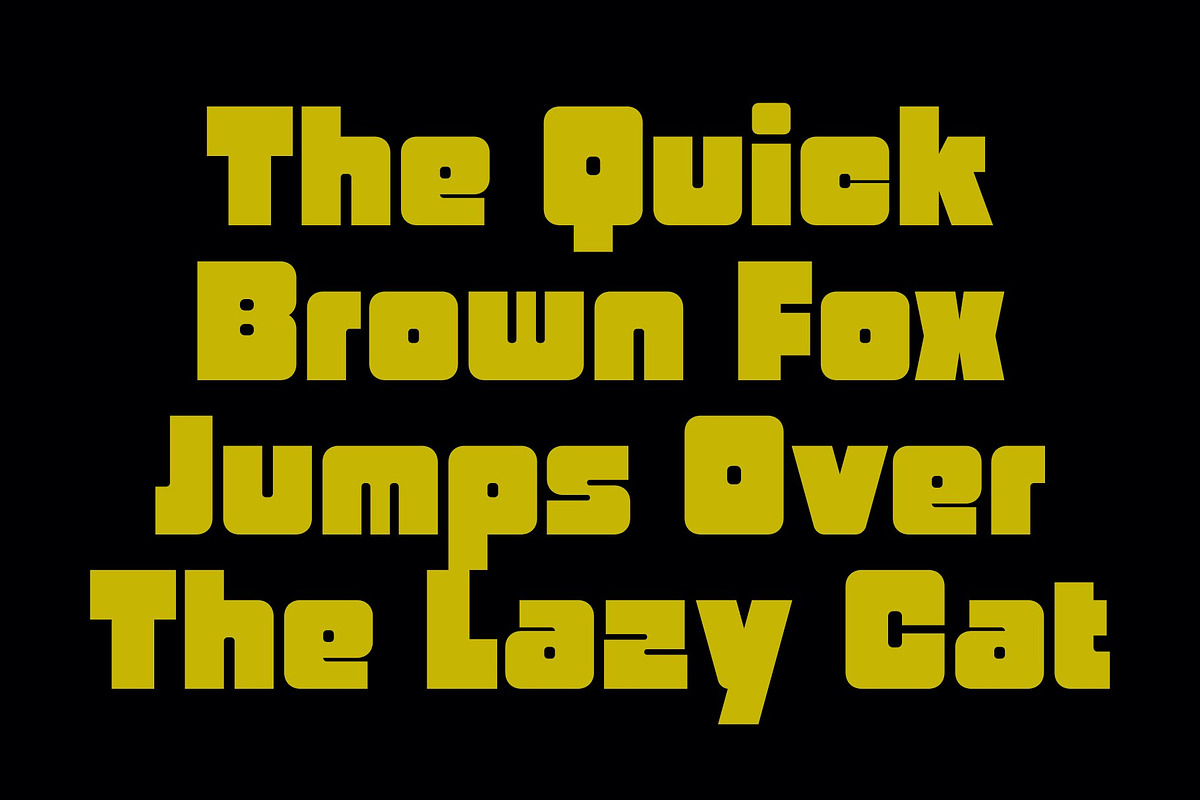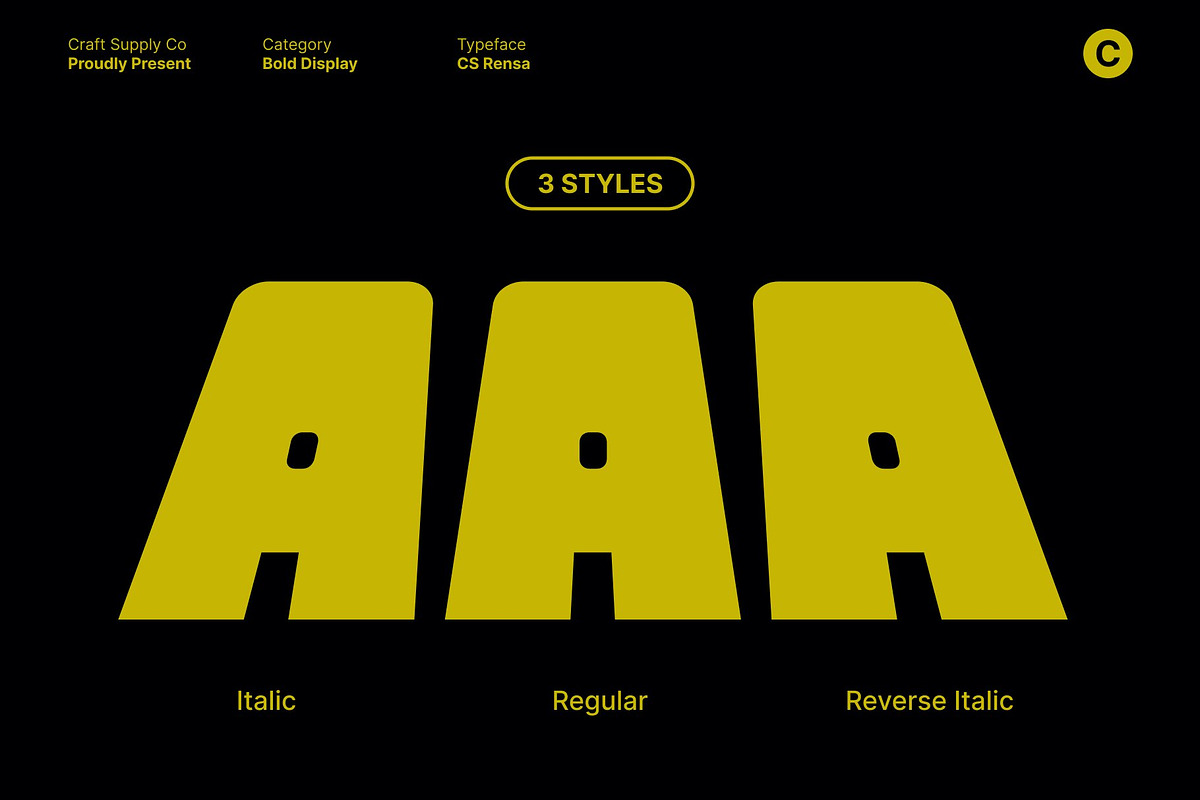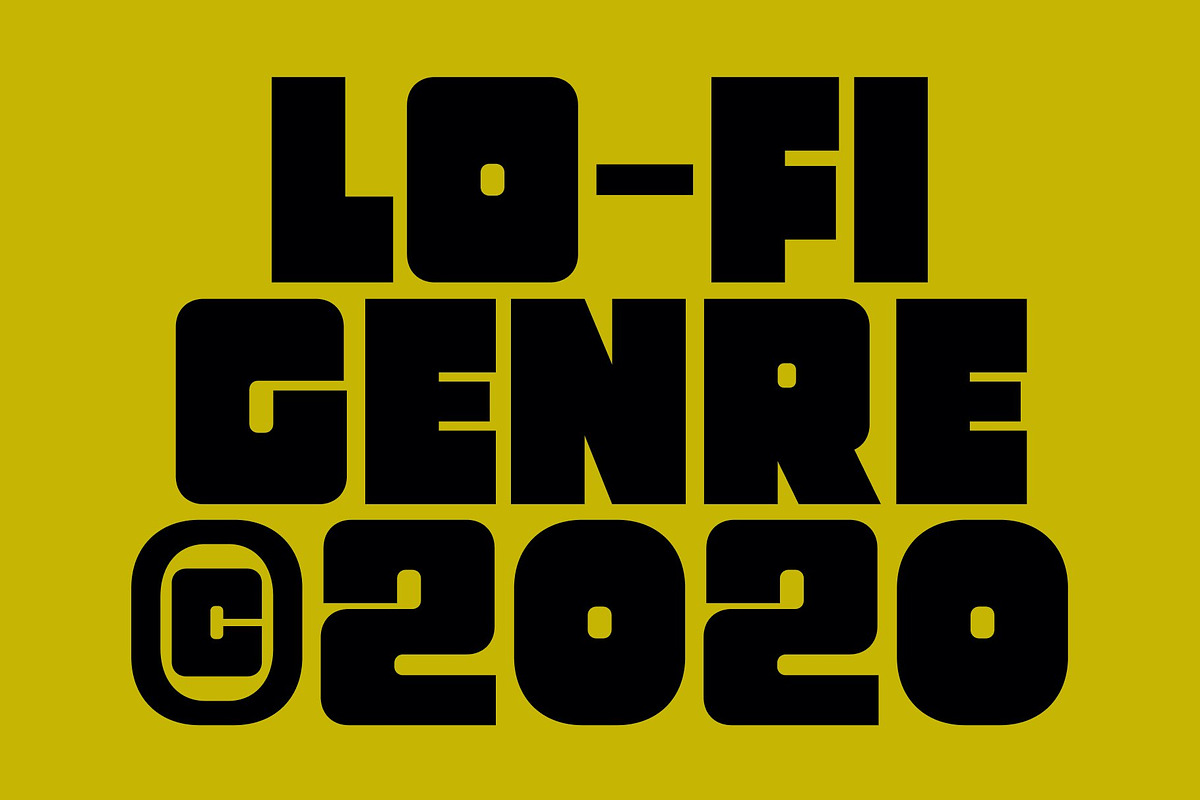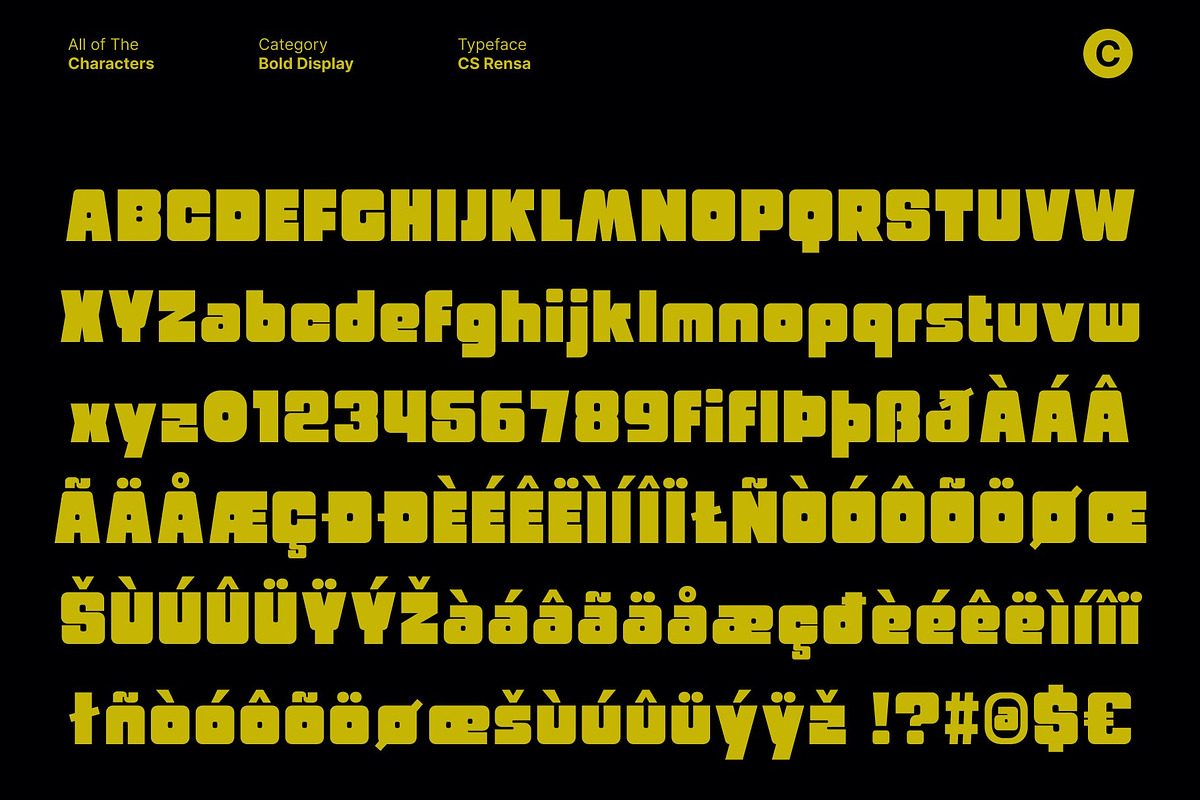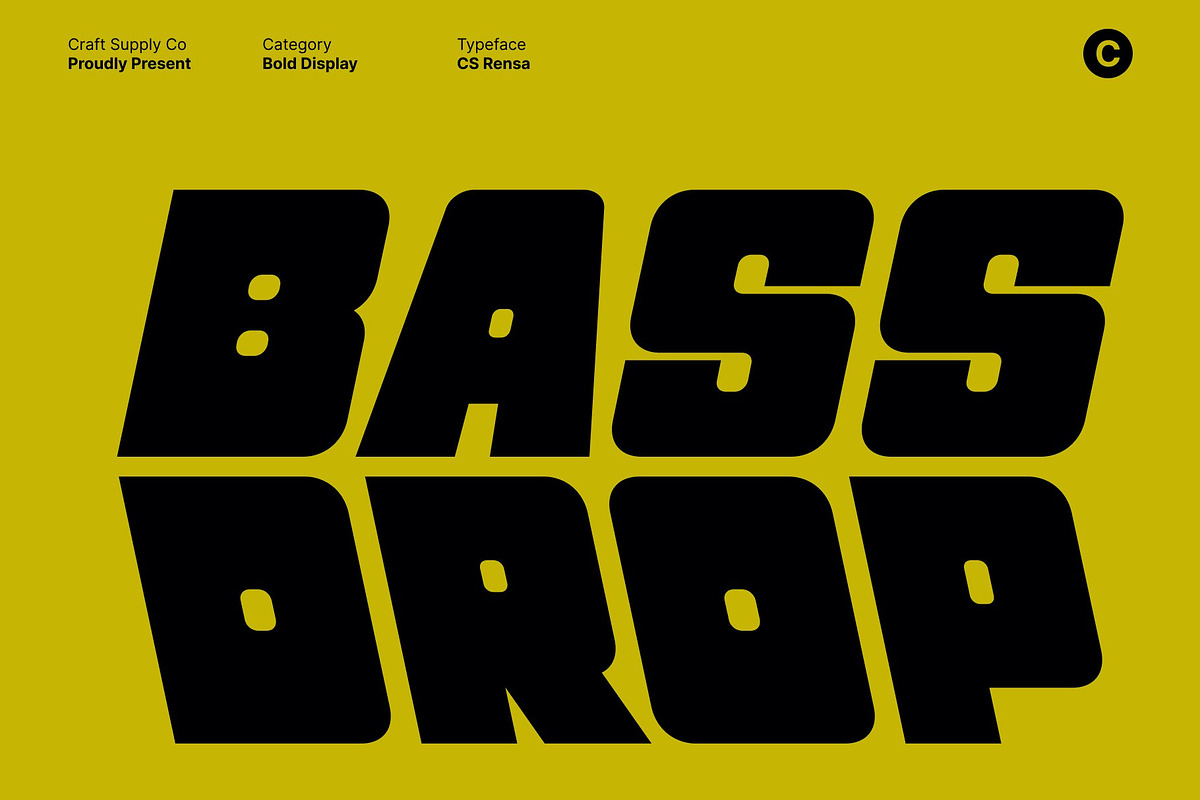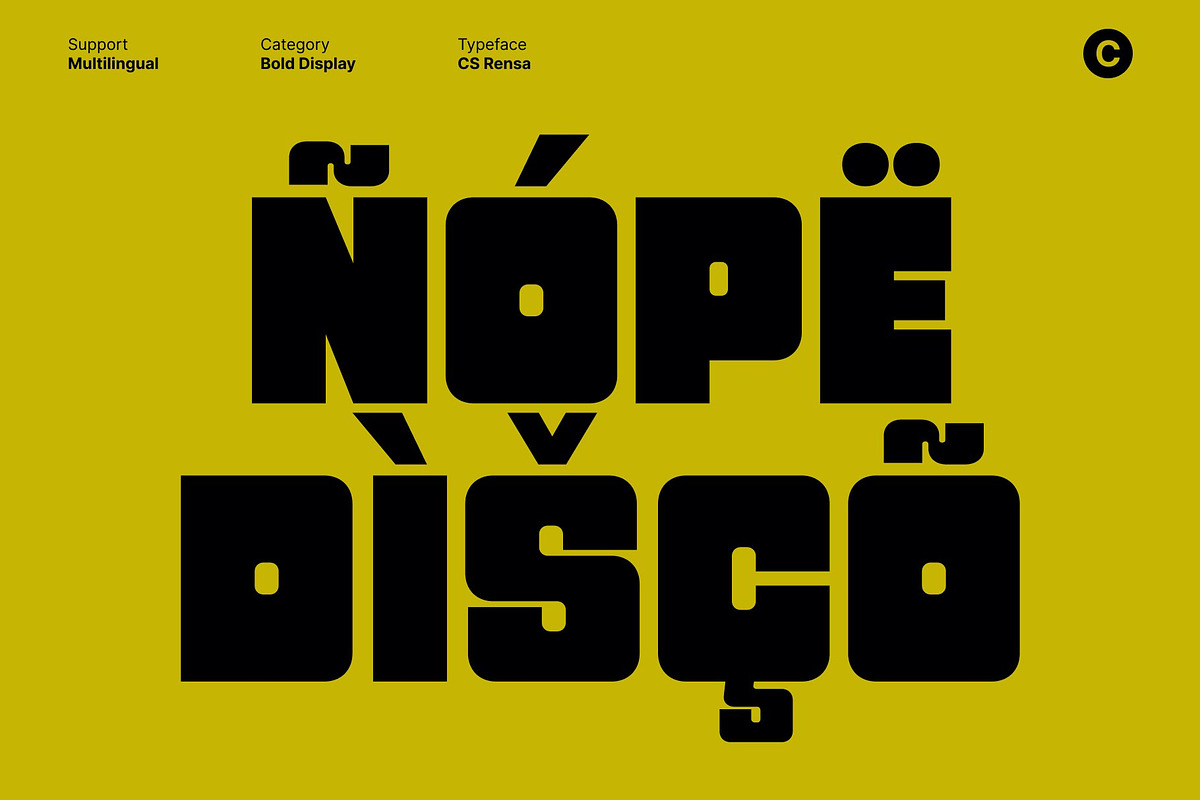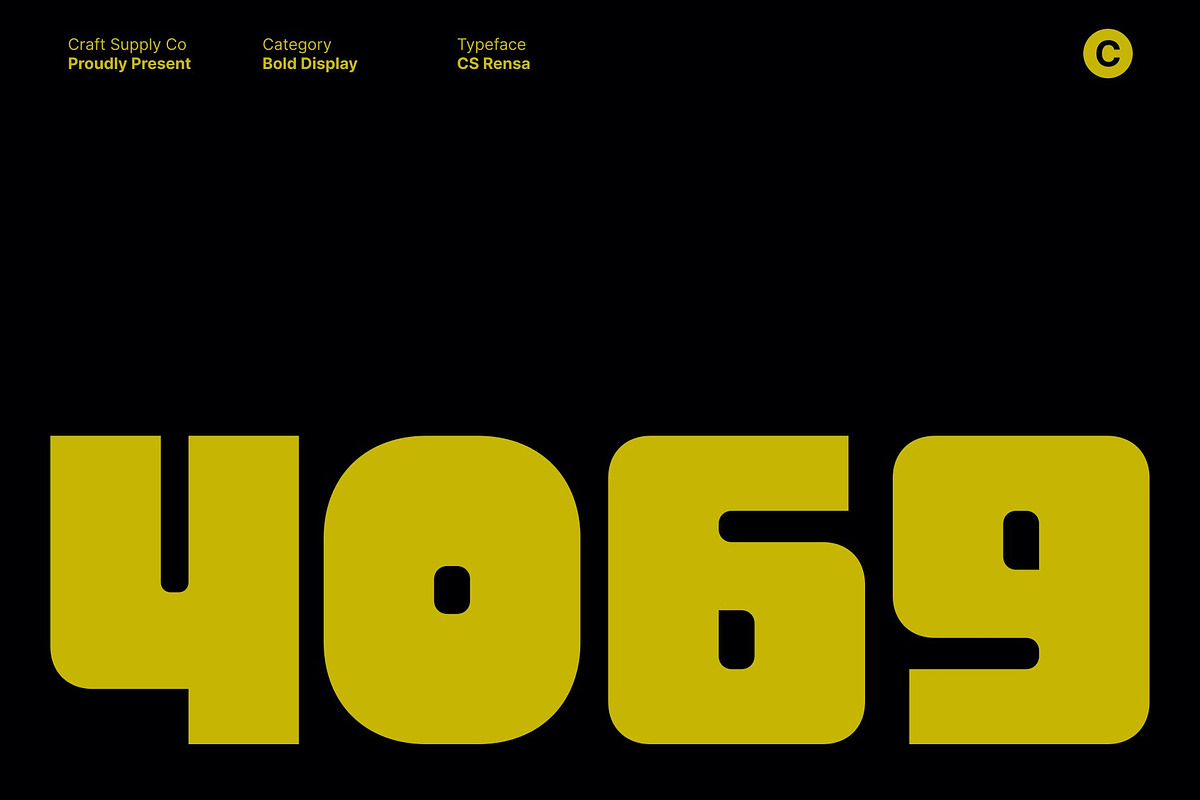
CS Rensa – Bold Sans Serif
CS Rensa – Bold Geometry for Maximum Impact
A Strong Sans Serif Built for Expression This is a bold geometric sans serif font designed to deliver powerful visual impact. With its solid block shapes, clean structure, and commanding proportions, this typeface immediately draws the eye. Every character is crafted to enhance clarity and presence, making it a standout choice for expressive and high-impact design work.
Geometric Forms with Striking Boldness The strength of this font lies in its precise geometric blocky construction. The sharp angles, uniform widths, and confident curves create a harmonious yet assertive appearance. Its design ensures that any message set in this font feels intentional, modern, and visually compelling ideal for creatives who want typography that leads the composition.
Perfect for Posters, Titles, and Band Merchandise Whether used for attention-grabbing posters, bold title treatments, or striking band merchandise, this font gives your work a memorable edge. Its weight and structure allow it to dominate layouts effortlessly, making it a reliable choice for projects that must communicate energy, attitude, and presence.
Unapologetically Bold and Designed to Stand Out This font thrives in settings where typography must do the heavy lifting. Pair it with minimal graphics for a clean, modern look or combine it with expressive visuals for a more dynamic design. No matter the context, this font ensures your message captivates, resonates, and leaves a lasting impression.
- CS Rensa Regular
- CS Rensa Italic
- CS Rensa Reverse Italic